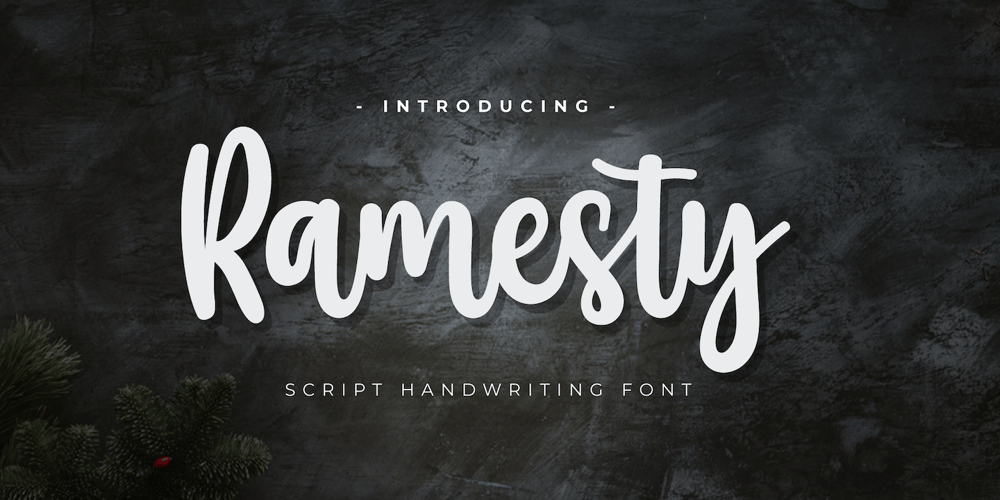
Ramesty
Ramesty font
Ramesty Font Family was designed by Rozikan and published by Twinletter. Ramesty contains 1 styles and family package options. Ramesty is a handwriting bunch of fonts that are charming and elegant in each of their writings. very suitable for all designs that require a touch of handwriting, of course, using this font will make your design charmingThis font is designed with a natural touch of handwriting which is refined to create a portion and composition that suits your needs. So this font is suitable for craft, children’s writing, adventure posters, food banner titles, wedding invitations, product packaging logos, quotes, social media page covers, furniture banner headlines, book covers, and much more.